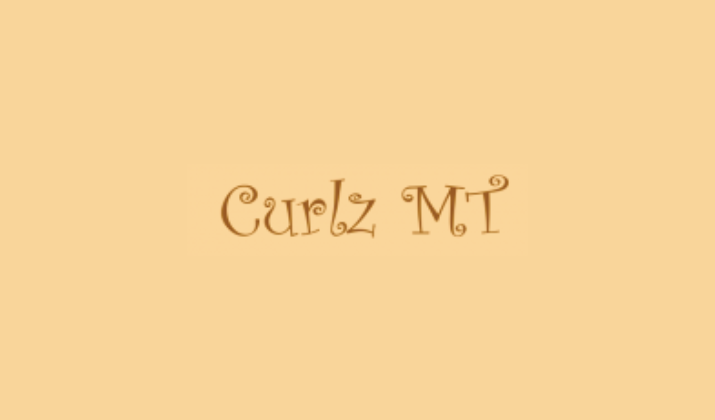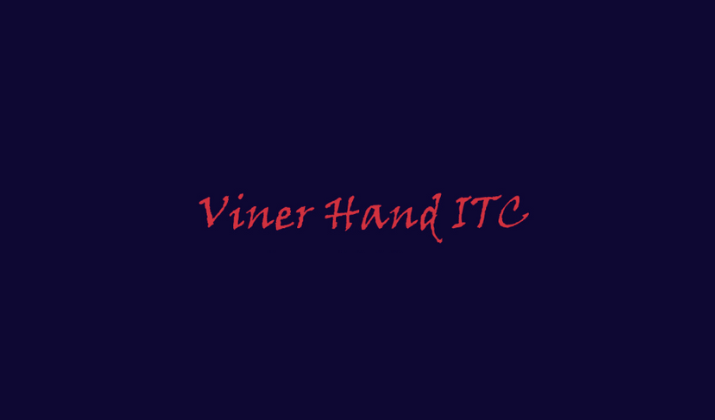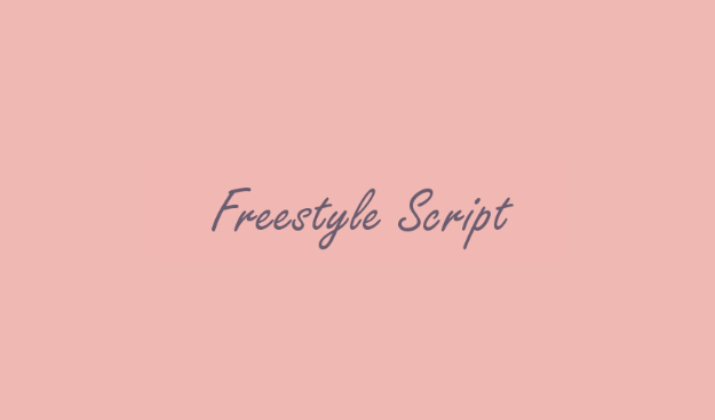
Be it designing party invitations, classroom decorations, or fan fiction covers, Harry Potter-inspired fonts bring a touch of magic to your work.
Luckily, several fonts available directly in Microsoft Word, either pre-installed or easily accessible via Microsoft’s font library, mimic the magical aesthetic of the Harry Potter universe.
In this guide, we’ll explore the best free Harry Potter fonts that are either included in Word or can be added to it without cost.
Let’s dive into the world of magical typography.
Best Harry Potter Fonts On Microsoft Word
1. Segoe Script
Segoe Script is a classic cursive font that mirrors the handwritten elegance often seen in spellbooks, potion recipes, or Professor McGonagall’s notes.
It has a formal yet whimsical appearance, with smoothly connected letters that feel authentic and refined.
While it’s not an exact match for any one Harry Potter font, its soft flow and readability make it a fan-favorite for themed invites or chapter headings.
It’s a perfect pick if you’re aiming for a magical script without needing to install third-party fonts. Its versatility works well in both body text and titles when properly sized.
2. Ink Free
Ink Free mimics a messy, handwritten style that feels like it could belong in a wizard’s notebook or scribbled across a Hogwarts homework scroll.
It has a slightly chaotic charm, ideal for a rough spellbook or Marauder’s Map-style project. The letterforms are unpolished in a way that adds character, but they’re still readable enough for larger blocks of text.
If you’re working on a creative school project or prop design, Ink Free adds a genuine personal touch. It also complements parchment or scroll-style background designs beautifully.
3. Lucida Handwriting
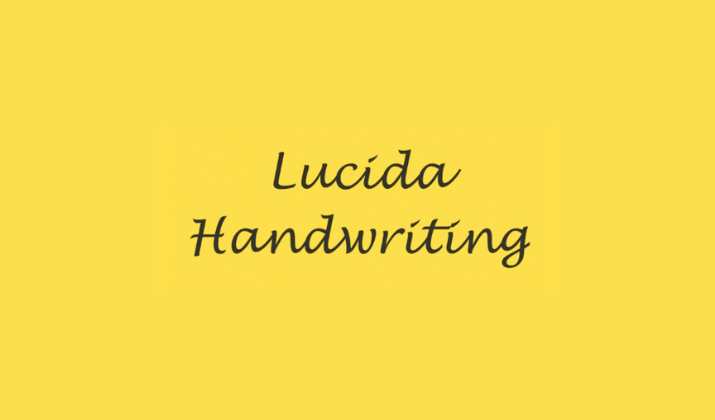
Lucida Handwriting captures the graceful flair of magical correspondence or diary entries from characters like Lily Potter or Hermione Granger.
The elegant loops and consistent spacing make it feel like formal wizarding world calligraphy. It’s refined but with enough style to stand out, making it perfect for titles, quotes, or headers.
Its legibility and charm make it a go-to for crafting personalized magical documents. Pair it with a themed border or wax seal graphic to enhance the vibe.
4. Chiller
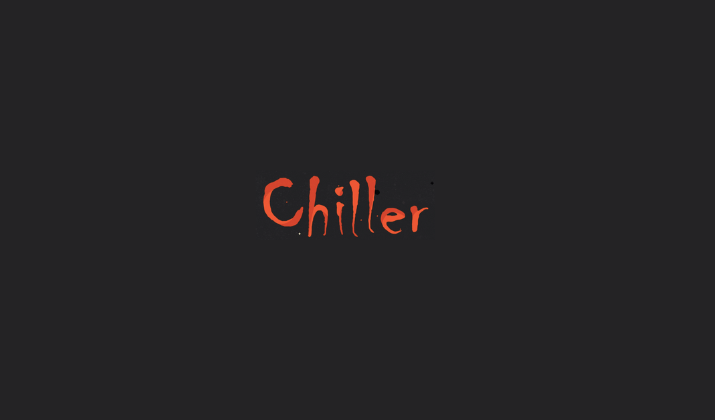
Chiller is a spooky, jagged font that captures the eerie tone of darker moments in the Harry Potter series, think the Forbidden Forest, Death Eaters, or Halloween at Hogwarts.
While it’s not a direct replica of the “Harry Potter” logotype, its chaotic and gothic design makes it an excellent stylistic match.
The dripping and distorted elements are great for titles or short spell incantations.
Chiller is typically included in Microsoft Office and Word installations, especially on Windows PCs. It shines in decorative uses, so use it sparingly for maximum impact.
It’s perfect for crafting potion labels, dungeon signage, or haunted party invites.
5. Bradley Hand ITC
Bradley Hand has a friendly handwritten look that reminds one of Hagrid’s clumsy penmanship or notes passed in the Gryffindor common room.
Its rounded, personal letterforms make it approachable and warm, ideal for diary entries, children’s crafts, or informal magical notes.
This font has been part of the Microsoft Word standard set for many years and is available across multiple Office versions.
Its handwritten feel is clear without looking too stylized, so it works well for everyday fan projects.
It’s especially great if you’re creating something in a first-person voice like a Hogwarts journal.
6. Algerian
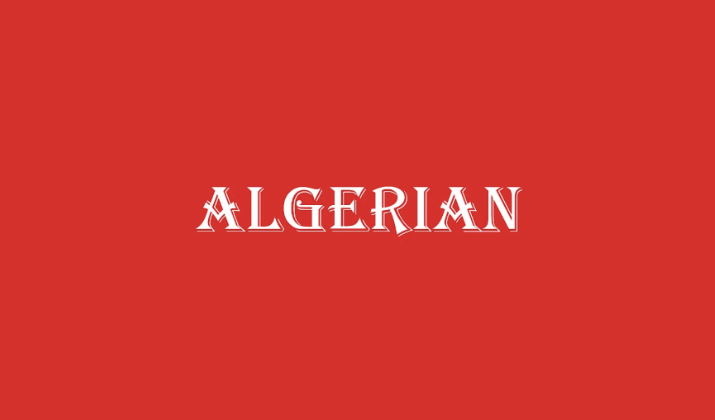
Algerian offers a bold, serif-heavy aesthetic that conjures images of ancient magic, Ministry of Magic signs, or old spellbook covers.
With its classic engraved look, it has a vintage and authoritative presence, perfect for formal magical documents.
While not directly related to Harry Potter, the font’s design evokes the grandeur of historical wizarding culture.
Algerian is typically included with Microsoft Word or is downloadable for free via the Microsoft Store font packs.
It’s most effective in all-caps for headers, banners, or certificates. Just avoid using it for body text due to its complex design.
Conclusion
While Microsoft Word doesn’t come with the official “Harry P” font used in the film logos, it still offers a wide range of magical, fantasy-style fonts that can help you channel the world of Harry Potter.
From handwritten scripts to gothic and ancient letterforms, these fonts are perfect for themed crafts, creative writing, or school projects.